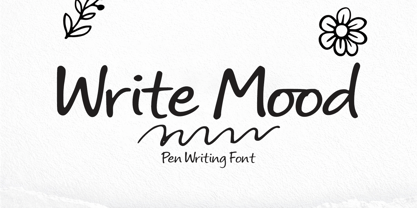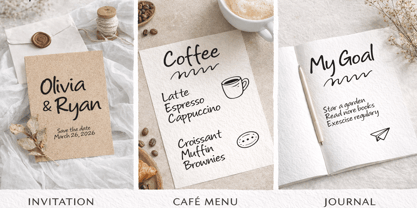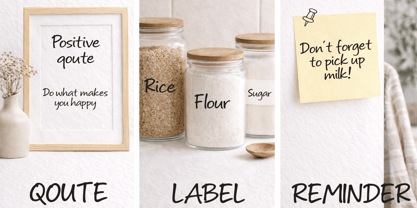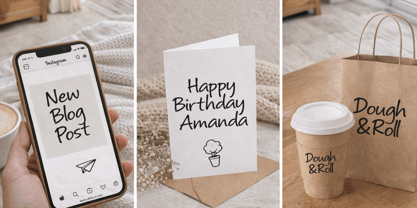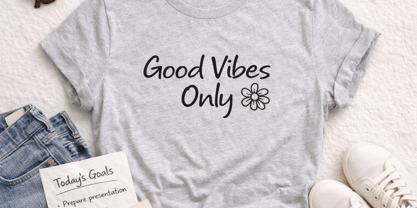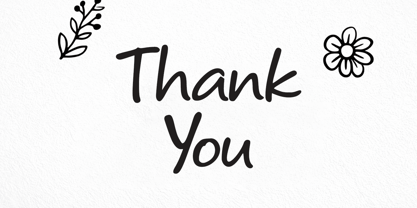
Write Mood
by Cocodesign
The Write Mood Font Family was designed by Muhammad Zaini and published by Cocodesign. Write Mood contains 2 styles and family package options. More about this family
Write Mood is a natural handwritten pen font that brings a warm, casual, and authentic writing feel to your designs. With smooth flowing strokes, balanced proportions, and clean letterforms, this font is easy to read while maintaining a stylish handwritten character, making it perfect for branding, logos, social media posts, quotes, packaging, invitations, merchandise, and various creative projects that require a modern yet natural touch.
Designers: Muhammad Zaini
Foundry: Cocodesign
Write Mood